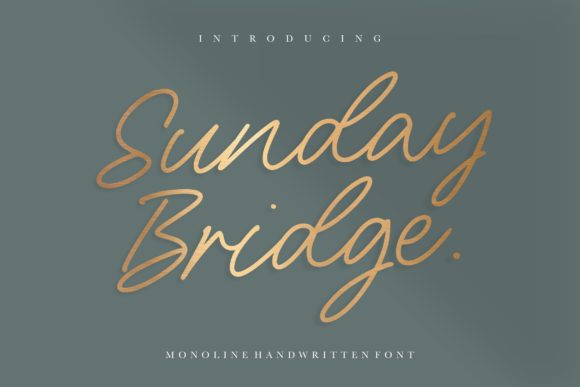
Step into a world of enchanting expression with Sunday Bridge, a script font that oozes charm and elegance. This modern handwritten font will add a touch of magic to your creative projects, whether it's for crafting heartfelt messages, designing eye-catching logos, or adding a personal touch to your digital projects.
Immerse yourself in the beauty of Sunday Bridge's delicate curves, natural flow, and captivating letterforms. Each character dances across the page with a grace that will leave you breathless. Experience the joy of unleashing your creativity as the words flow seamlessly from your fingertips, leaving a trail of enchanting designs.
With Sunday Bridge, you hold the key to unlocking your imagination. Let your words take on a new life, as this font transforms them into works of art. Whether you're a seasoned designer or just starting your creative journey, Sunday Bridge will guide you with its user-friendly nature and versatility.
Explore the endless possibilities that await you with Sunday Bridge. Use it to create stunning wedding invitations that evoke romance and elegance. Design awe-inspiring posters that capture the attention of your audience. Craft social media posts that radiate individuality and charm. The creative possibilities are limitless.
So, why settle for ordinary when you can embrace the extraordinary? Embark on a creative adventure with Sunday Bridge today and discover the transformative power of a truly unique font. Let your creativity soar as you create designs that captivate, inspire, and leave a lasting impression. Fall in love with the beauty of Sunday Bridge and let your imagination run wild.